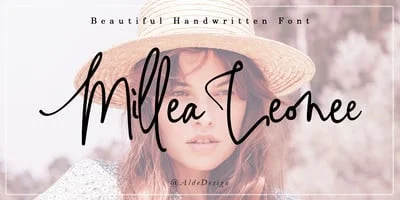
Millea Leonee Font
Millea Leonee Font is perfect for luxury fashion brand identity, high-end beauty product packaging, elegant perfume advertisements, sophisticated jewelry displays, premium wedding stationery, exclusive boutique signage, couture fashion labels, refined cosmetics branding, upscale spa communications, and aristocratic event invitations. This exquisite typeface brings regal sophistication and feminine luxury to any design project celebrating elite fashion and distinguished beauty standards.
Millea Leonee Font is exciting because it captures the essence of royal elegance and feminine nobility through its graceful letterforms that suggest both strength and delicate beauty. The font's majestic character and luxurious appeal evoke the confidence of nobility and the refinement of high society, making it perfect for brands that want to communicate exclusivity, prestige, and aristocratic sophistication to discerning luxury markets.
Millea Leonee Font family includes multiple weights and styles: Regular, Bold, Light, Medium, Italic, Condensed, Extended, Royal, Elegant, and Couture variants. Each style maintains the distinctive aristocratic character while providing comprehensive options for creating sophisticated luxury branding and elite communications that celebrate both feminine power and regal heritage across various premium applications.
Whether you're designing for luxury fashion houses, high-end beauty brands, or exclusive lifestyle products, Millea Leonee Font delivers the aristocratic elegance that resonates with luxury consumers and elite fashion markets. This distinguished typeface combines royal sophistication with contemporary functionality, making it essential for projects requiring both noble appeal and premium positioning. The font's regal presence ensures commanding impact in luxury and high-fashion contexts.